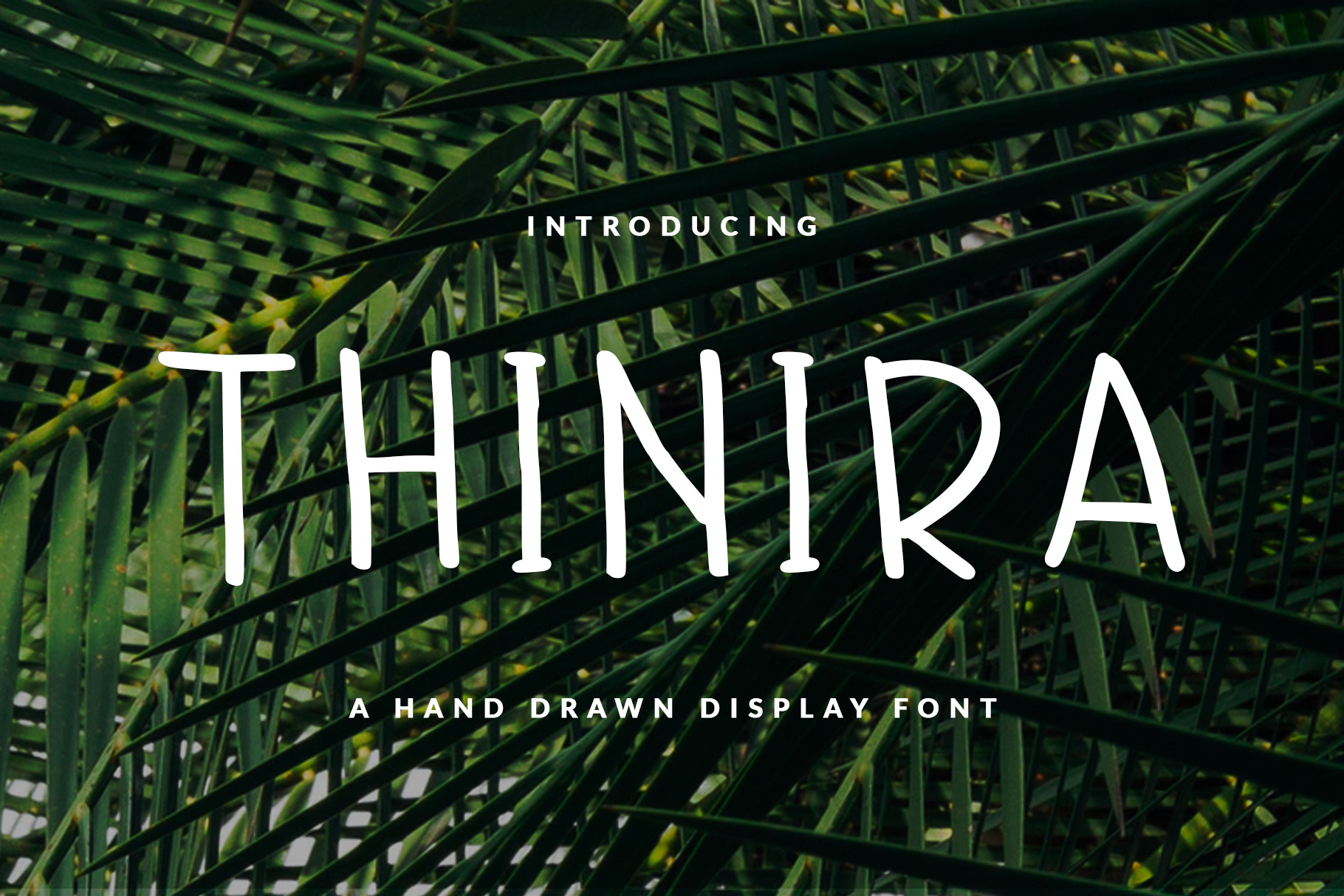
THINIRA FONT HEADER & BOOK
Sans serif hand-drawn display font called THINIRA was designed for modern, classic, feminine, unique and other style also fit for Header website, general use for header text, kids stories, books, poems and other long text